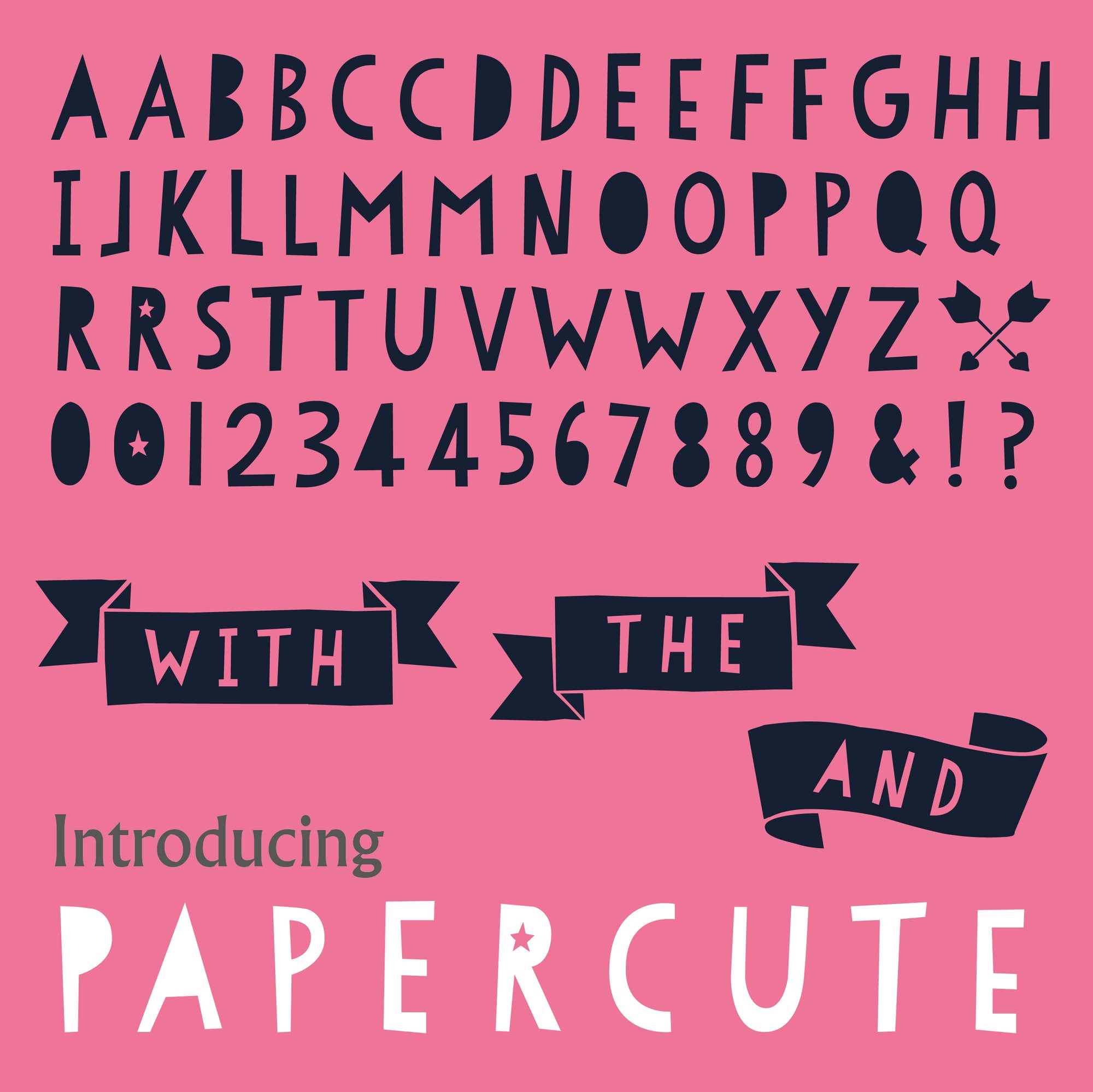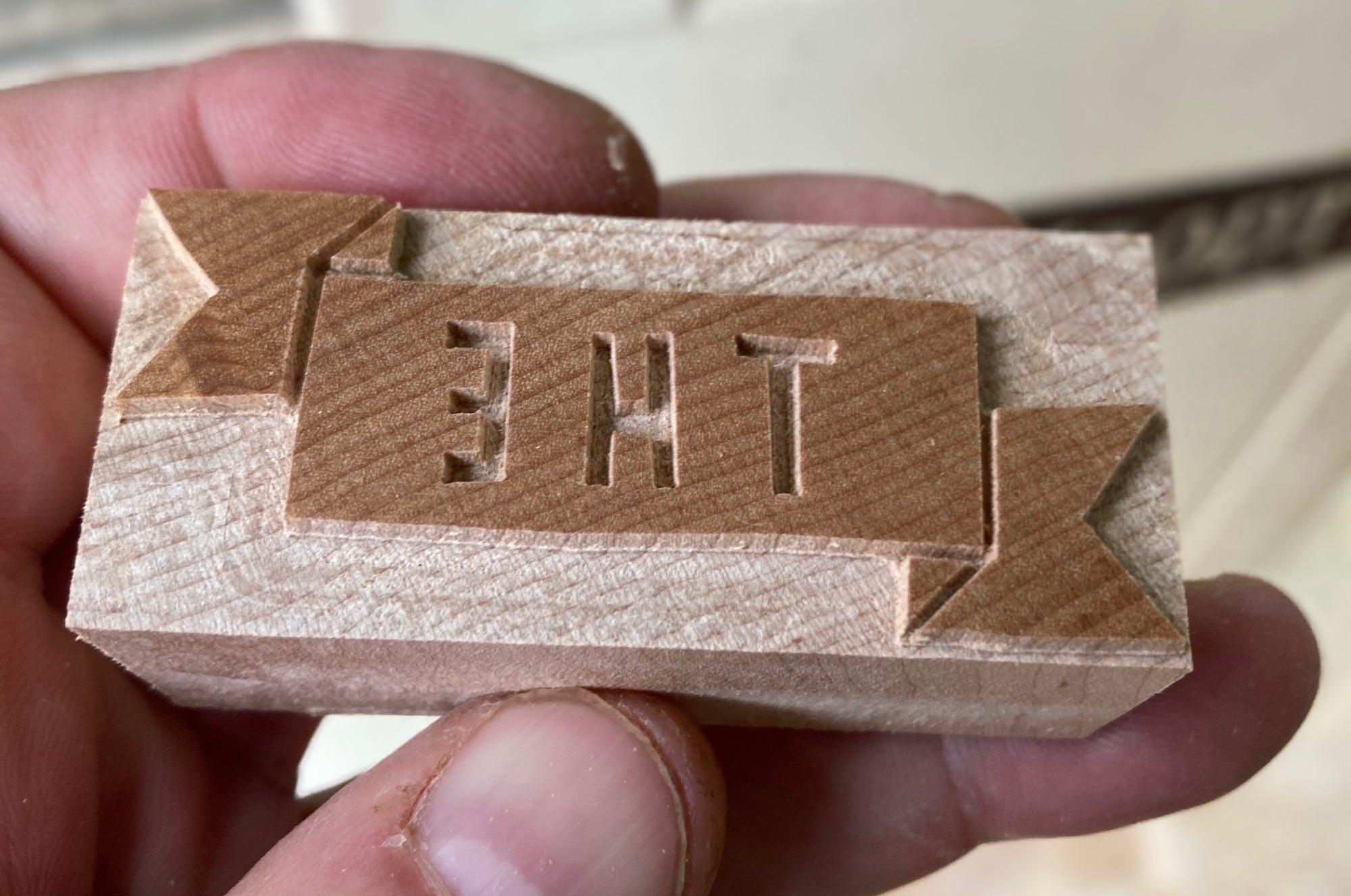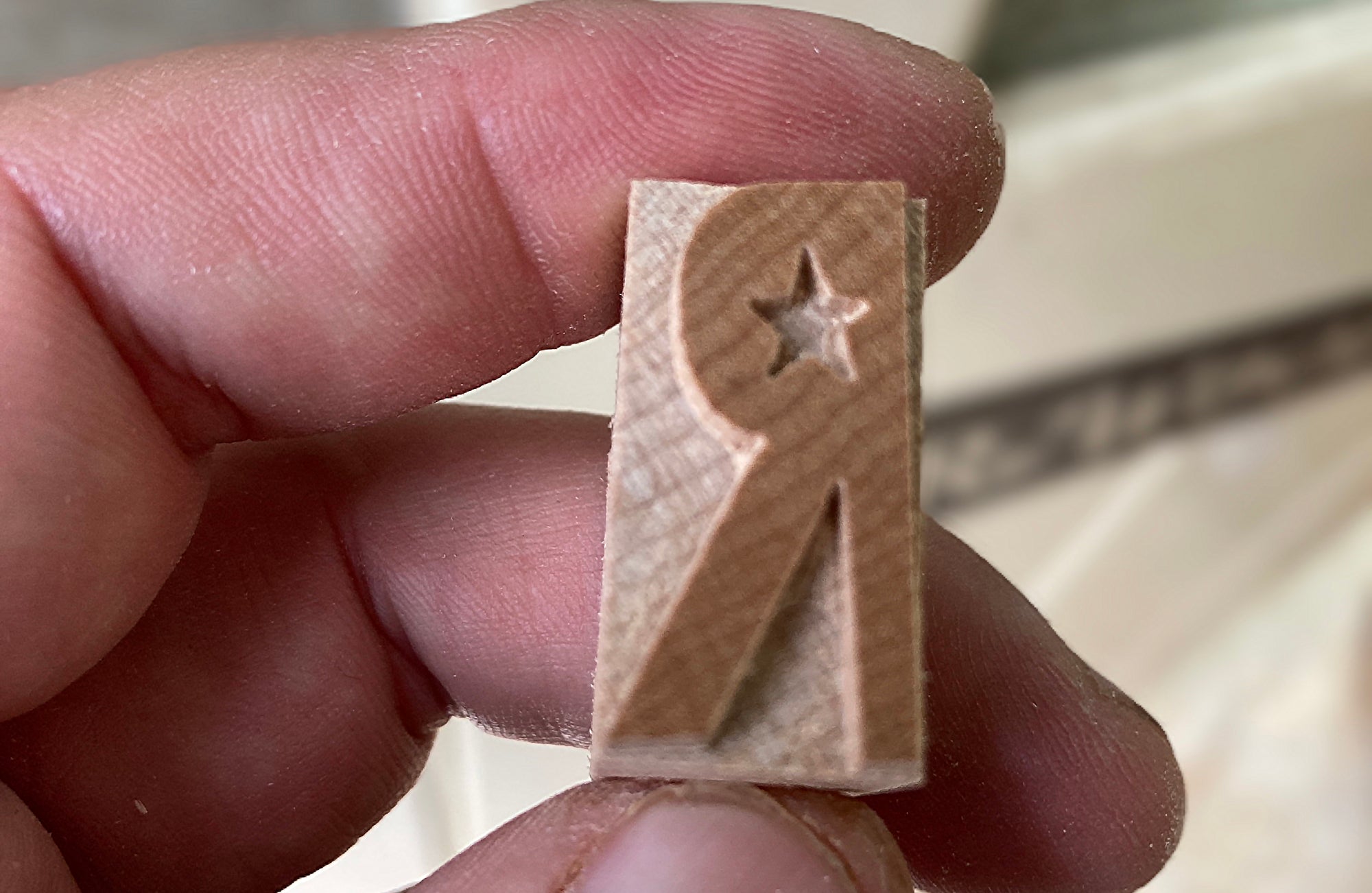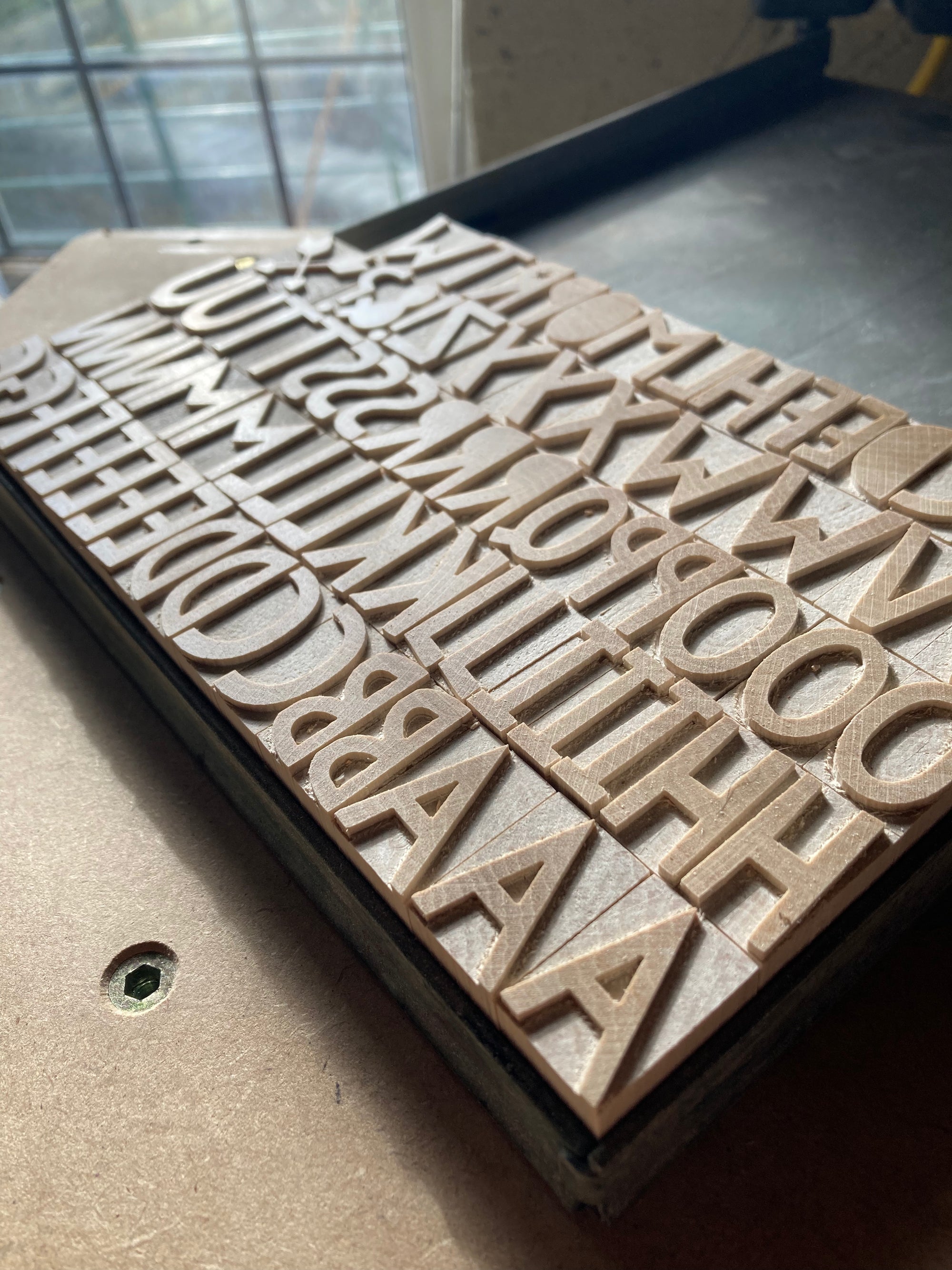
'Papercute' letterpress woodtype typeface
Introducing 'Papercute' - designed by Fanny Coulez and Julien Saurin at S&C Type in Paris. Inspired by paper cutting, this typeface comes with alternative glyphs, ornaments and catchwords. Available as wood type for the first time. Manufactured under licence.
6 line (25.4mm) version cut from end grain English hardwood using a combination of modern CNC technology and traditional hand woodworking tools (including an original printers saw), made to English type-high (0.918in or 23.3mm) within plus or minus 0.1mm tolerance, sealed with shellac and hand finished with a traditional polished printing surface.
Available as a 3A scheme (63 blocks), Alternates (14 blocks), Figures (23 blocks) and Catchwords (3 blocks). Please see scheme details on the right. There are 2 variations of each letter in the 3A scheme.
End grain English Hardwood, clear shellac
Each block varies in width however average size is 18mm x 23.3mm x 25.4mm.